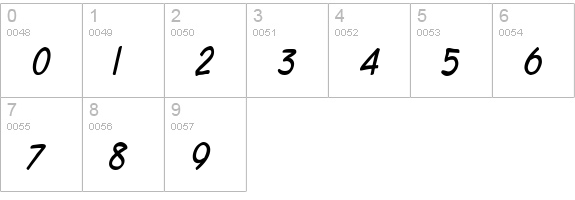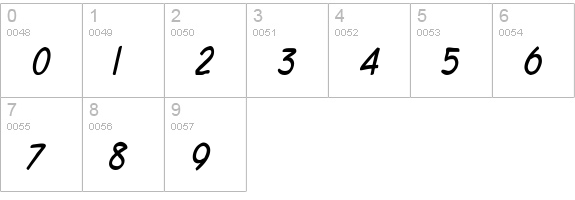
CopybookCondensed Bold Italic Font Details
CopybookCondensed Bold Italic is a strong, high-contrast, italic variant in the CopybookCondensed typeface family \xE2\x80\x94 well suited to headlines, attention-grabbing titles, and strong calls-to-action.
CopybookCondensed Bold Italic font is a stylish and modern typeface that exudes sophistication and elegance. Its bold and italic design adds a touch of flair to any project, making it perfect for creating eye-catching titles, headings, and branding materials. The sleek condensed style of this font lends a contemporary look while maintaining readability. Best of all, CopybookCondensed Bold Italic font is available for free download at FontsMarket.com, making it accessible to anyone looking to elevate their designs with a touch of class and professionalism. Don't miss out on this fantastic opportunity to enhance your projects with this beautiful and versatile font. Download it today and unleash your creativity!